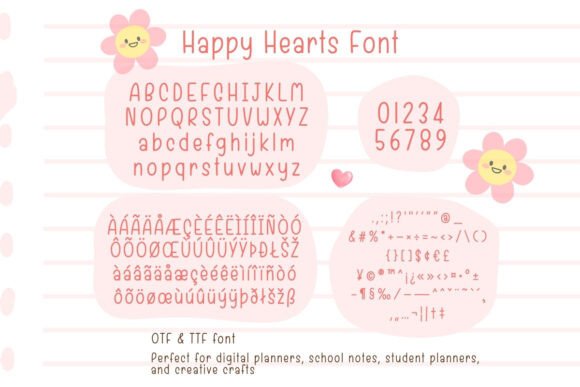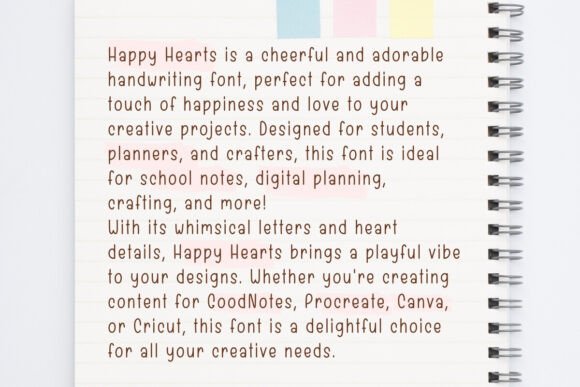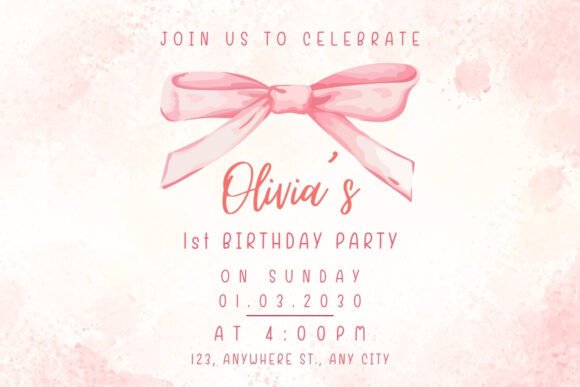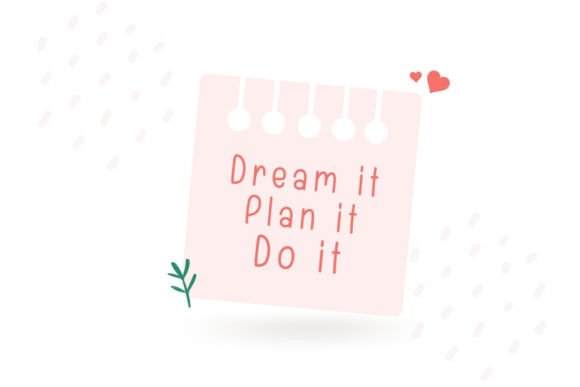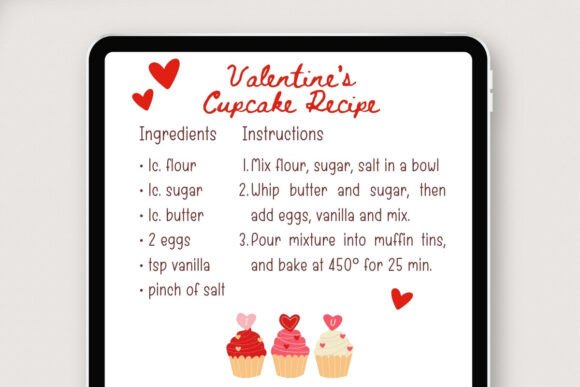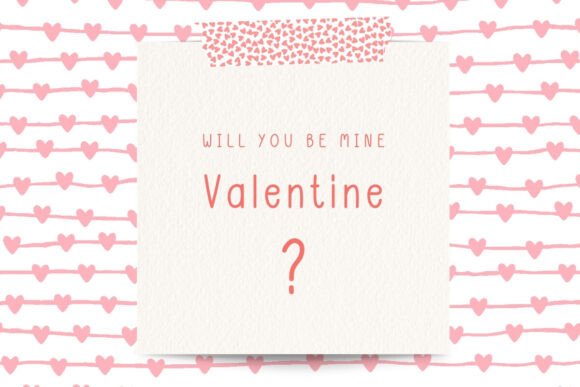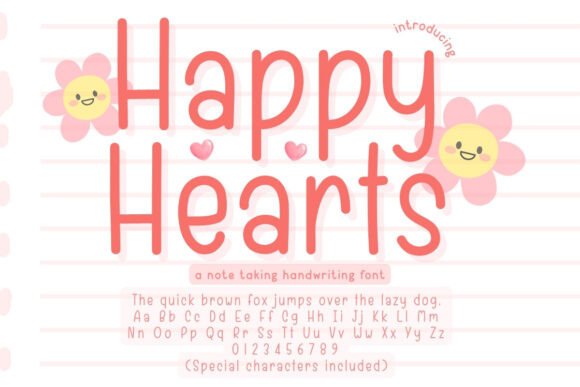
Introducing Happy Hearts Font: The Cheerful and Adorable Handwriting Font for Creative Projects
Are you looking for a font that can add a touch of happiness and love to your creative projects? Look no further than Happy Hearts Font! This cheerful and adorable handwriting font is perfect for students, planners, and crafters who want to bring a playful vibe to their designs. In this article, we’ll explore the features and benefits of Happy Hearts Font, and how it can be used to create delightful content for various creative projects.
What is Happy Hearts Font?
Happy Hearts Font is a handwriting font designed to spread joy and creativity. Its whimsical letters and heart details make it a perfect choice for adding a touch of happiness and love to your designs. The font is carefully crafted to be both cute and cheerful, making it ideal for a wide range of creative projects, from school notes and digital planning to crafting and more!
Key Features of Happy Hearts Font
• Cute and Cheerful Handwriting Font: Happy Hearts Font is a delightful handwriting font that brings a playful vibe to your designs.
• Perfect for Both Print and Digital Designs: Whether you’re creating content for digital platforms or print materials, Happy Hearts Font is a great choice.
• Includes Uppercase, Lowercase, Numbers, and Special Characters: The font includes a wide range of characters, making it versatile and easy to use.
Who Can Benefit from Happy Hearts Font?
Happy Hearts Font is designed for students, planners, and crafters who want to add a touch of happiness and love to their creative projects. Here are some examples of how different users can benefit from this font:
• Students: Use Happy Hearts Font to create colorful and engaging school notes, study materials, and projects.
• Planners: Add a playful touch to your digital planning with Happy Hearts Font, making your planners and journals more fun and engaging.
• Crafters: Use Happy Hearts Font to create cute and cheerful craft projects, such as greeting cards, gift tags, and DIY decorations.
How to Use Happy Hearts Font in Your Creative Projects
Using Happy Hearts Font in your creative projects is easy! Here are some ideas to get you started:
• Digital Planning: Use Happy Hearts Font to create colorful and engaging digital planners, journals, and organizers.
• School Notes: Add a touch of happiness to your school notes and study materials with Happy Hearts Font.
• Crafting: Use Happy Hearts Font to create cute and cheerful craft projects, such as greeting cards, gift tags, and DIY decorations.
• Social Media Content: Use Happy Hearts Font to create engaging and playful social media content, such as quotes, captions, and graphics.
Why Choose Happy Hearts Font?
There are many reasons why Happy Hearts Font stands out from other fonts. Here are some reasons why you should choose Happy Hearts Font for your creative projects:
• Unique and Playful Design: Happy Hearts Font has a unique and playful design that adds a touch of happiness and love to your designs.
• Easy to Read and Use: The font is easy to read and use, making it perfect for a wide range of creative projects.
Font Name Happy Hearts Font
Author narinari32
In conclusion, Happy Hearts Font is a cheerful and adorable handwriting font that’s perfect for adding a touch of happiness and love to your creative projects. With its whimsical letters and heart details, Happy Hearts Font brings a playful vibe to your designs. Whether you’re a student, planner, or crafter, Happy Hearts Font is a delightful choice for all your creative needs. So why wait? Spread joy and creativity with Happy Hearts Font today!